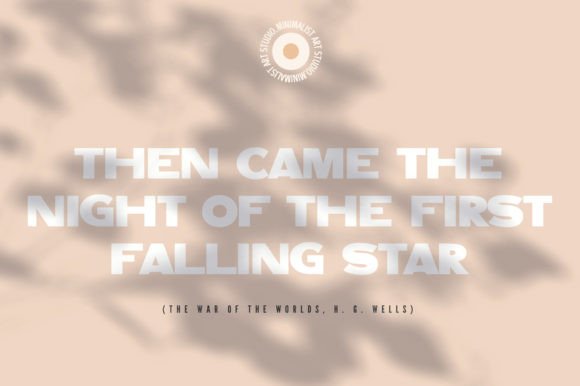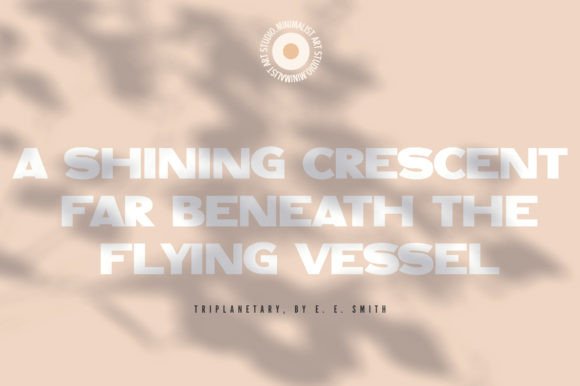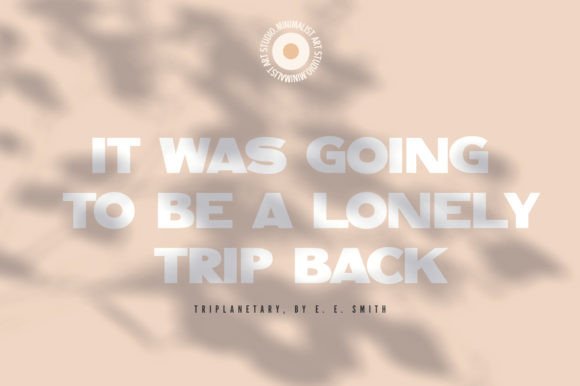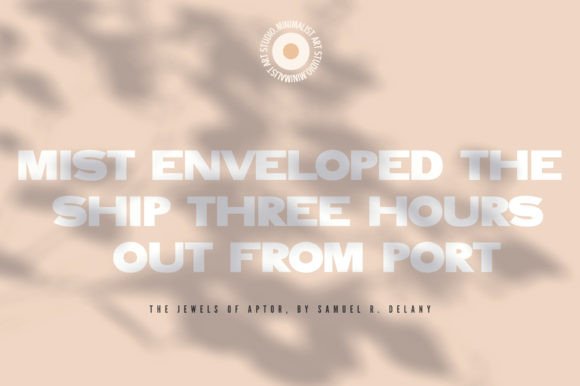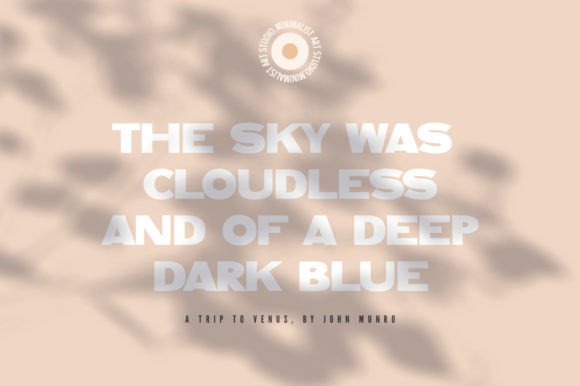
A New Era in Typography: Introducing the Arenia Font
Have you ever stared at a blank page, trying to find the perfect font to convey your message? You know, that elusive combination of style and sophistication that elevates your design from mere mortal to design genius? Well, say goodbye to those sleepless nights, because we’ve got the solution for you – the Arenia Font.
This stunning sans-serif font is designed to be the ultimate game-changer in your design arsenal. With its minimalist and bold aesthetic, the Arenia Font is perfect for creating packaging designs, cosmetic branding, posters, fashion products, or perfumes that exude elegance and refinement. Its clean and sleek lines make it ideal for headlines and branding materials, while its extensive glyph library provides a wide range of options to suit your design needs.
Arenia Font Key Features
- Font Family: Arenia Font, a modern sans-serif typeface designed for digital use.
- Unique Characteristics: Arenia Font features a clean, geometric design with a focus on legibility and readability in digital environments.
Arenia Font Review
Overall, I found the Arenia font to be quite unique and visually appealing. Here are some of the things that stood out to me:
- ✨ Elegant and refined design: The Arenia font features clean lines and subtle flair that gives it a sophisticated look.
- ✨ High-quality typography: The font is well-suited for body text, making it a great choice for publications, websites, and other written content.
- ✨ Versatile: Arenia can be used in a variety of settings, from formal to informal, making it a great addition to any font collection.
However, I did encounter a few limitations:
- ⚠️ Limited character set: The Arenia font may not be suitable for languages that require a large character set, such as Chinese or Japanese.
- ⚠️ Limited font sizes: The font may not scale well at very large or very small sizes, which could be a problem for certain applications.
Overall, I was impressed with the Arenia font’s unique design and high-quality typography. While it may have some limitations, it is a great choice for anyone looking for a sophisticated and elegant font.
To get the most out of Arenia Font in Canva, use the font to create visually appealing headings and titles. Experiment with different font sizes and colors to create contrast and hierarchy.
To get the most out of Arenia Font in Adobe Photoshop or Illustrator, use the font to create custom typography and graphics. Experiment with layer blending modes and effects to add depth and interest.
To get the most out of Arenia Font in PowerPoint or Word, use the font to create professional-looking presentations and documents. Experiment with different font sizes and colors to create contrast and hierarchy.
The Arenia Font is ideal for creating modern and elegant designs. Use it for:
- Brand logos and identities
- Typography-based graphics
- Professional presentations and documents
Alternatives to Arenia Font
Montserrat is a sans-serif font designed by Julieta Ulanovsky. It is a great alternative to Arenia Font when you need a clean and modern look for your designs. Montserrat has a similar feel to Arenia Font, but with a more geometric and condensed feel.
Use Montserrat when you need a font that is easy to read in both print and digital formats.
Comparison: Montserrat has a more geometric feel than Arenia Font, but both fonts share a similar modern aesthetic.
Lato is a sans-serif font designed by Łukasz Dziedzic. It is a great alternative to Arenia Font when you need a font that is both modern and elegant. Lato has a similar feel to Arenia Font, but with a more rounded and friendly feel.